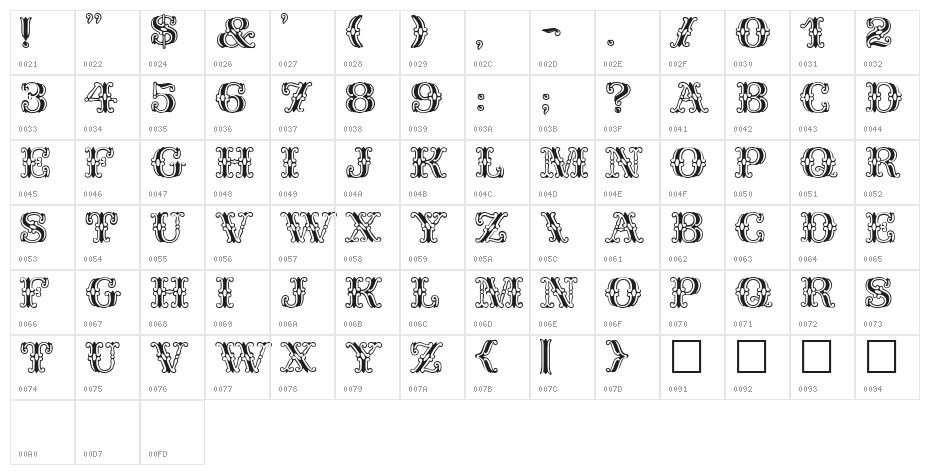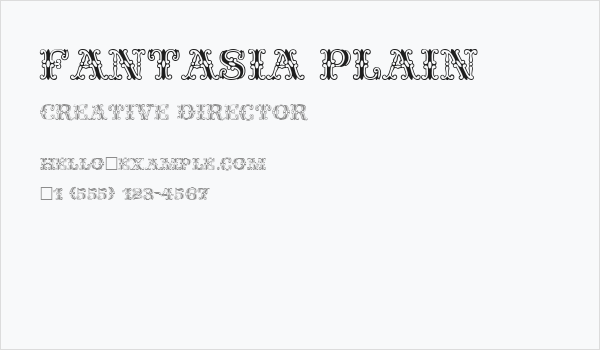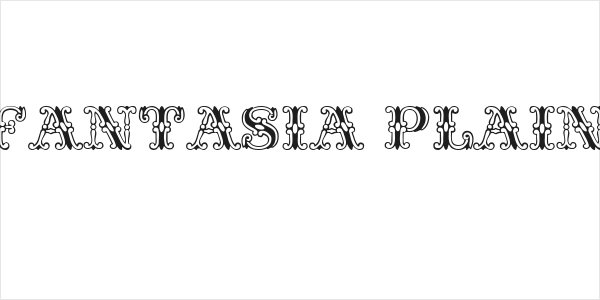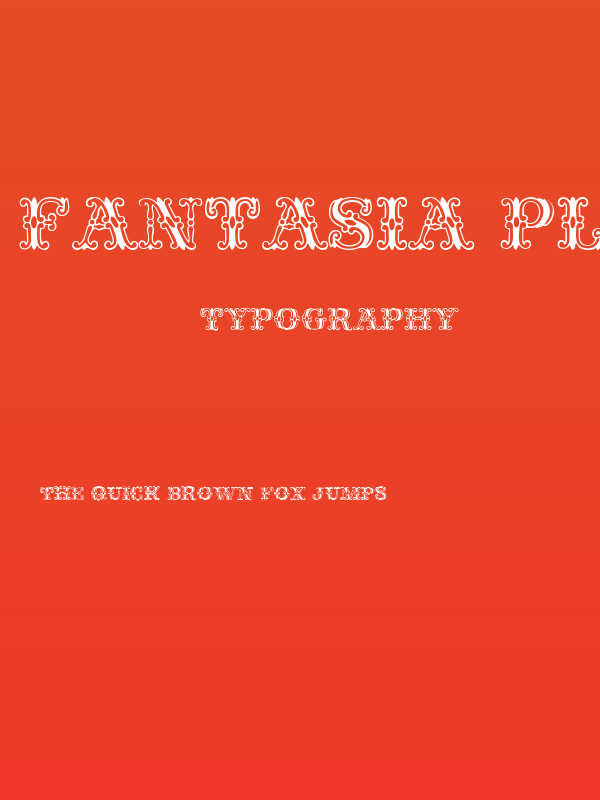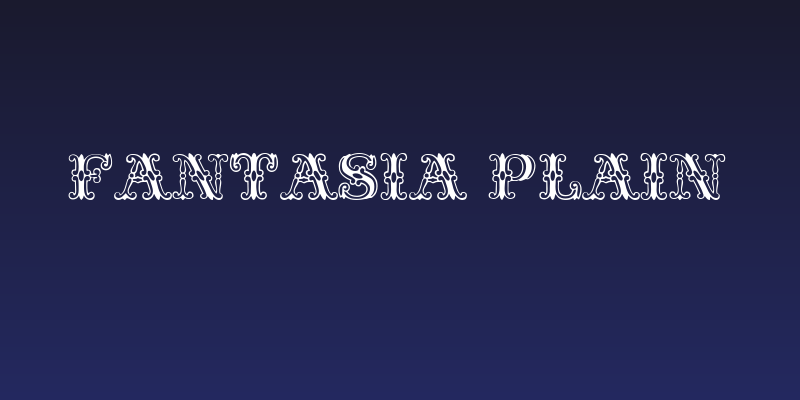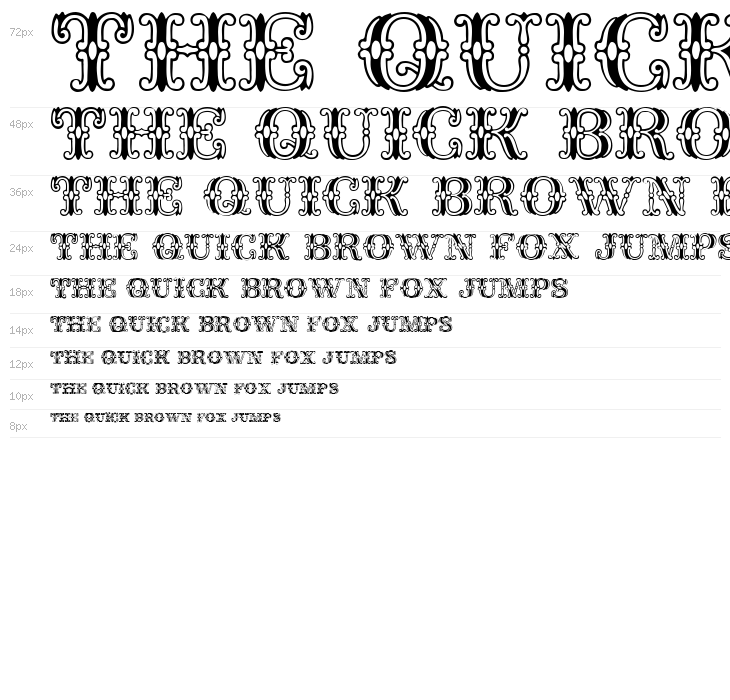
Fantasia Plain Font
Fantasia Plain Description
This font features an ornate and decorative style, characterized by intricate detailing and flourishes that give it a vintage and theatrical appearance. The letters are bold and have a shadow effect, adding depth and dimension. The design includes elaborate curves and loops, making it highly decorative and eye-catching. It is suitable for creating a dramatic and whimsical look, often used in contexts that require a touch of fantasy or elegance. The numbers and special characters maintain the same ornate style, ensuring consistency across all glyphs.
| Overall Style | Vintage, Decorative |
| Proposed Projects | Ideal for theatrical posters, fantasy-themed book covers, vintage-style branding, and decorative invitations. |